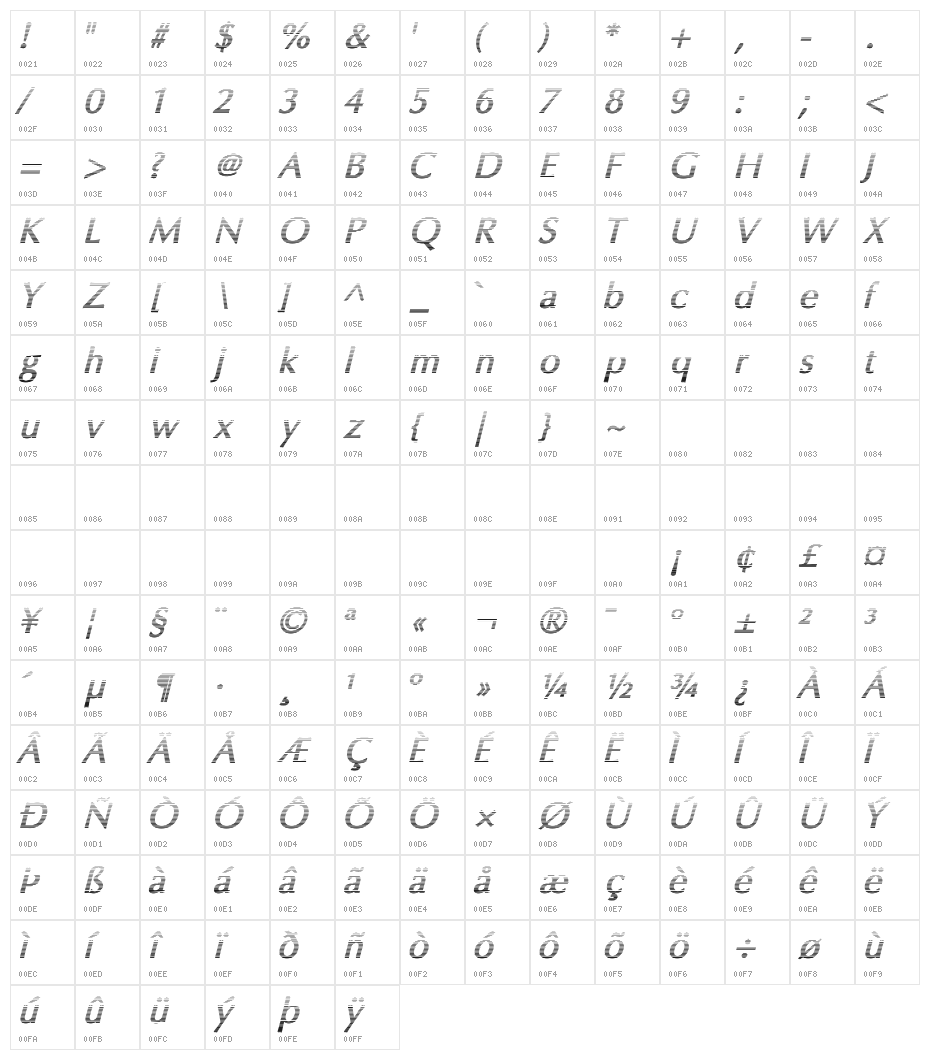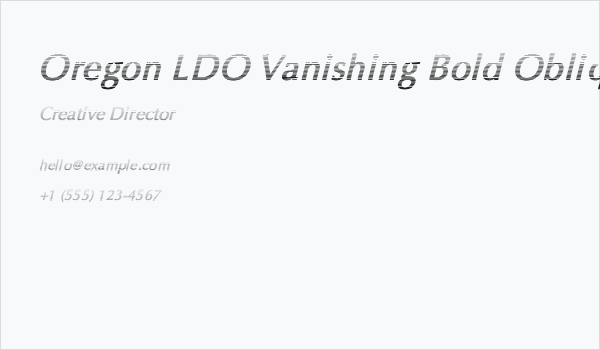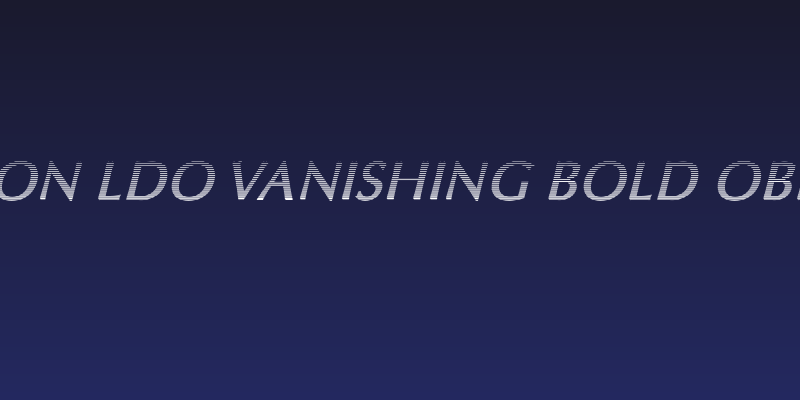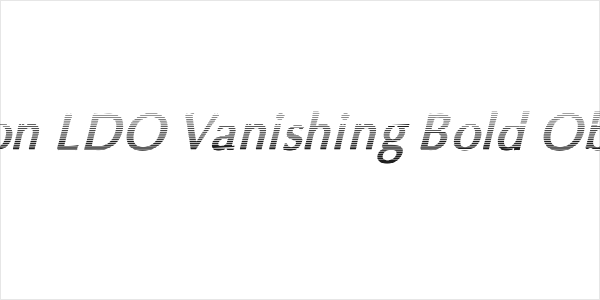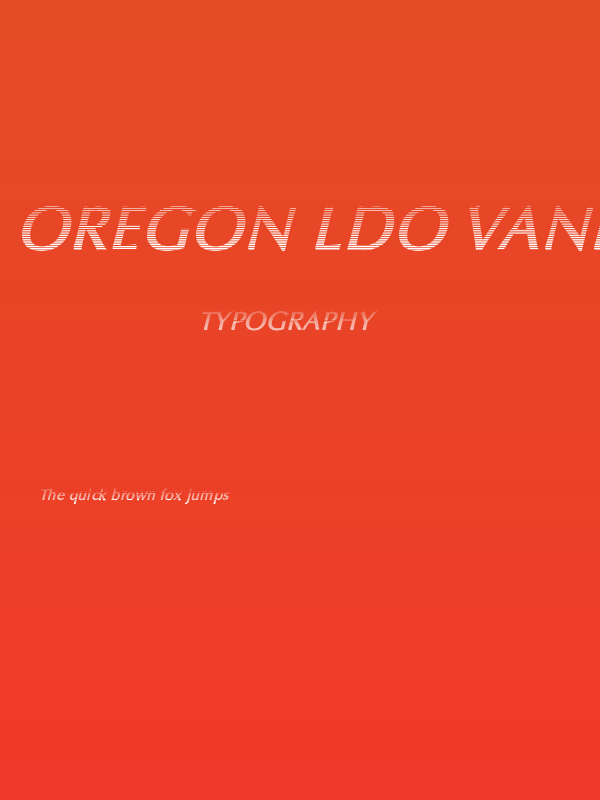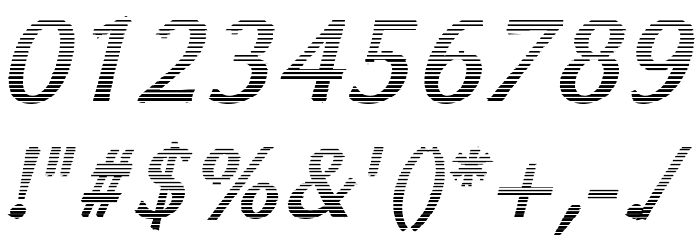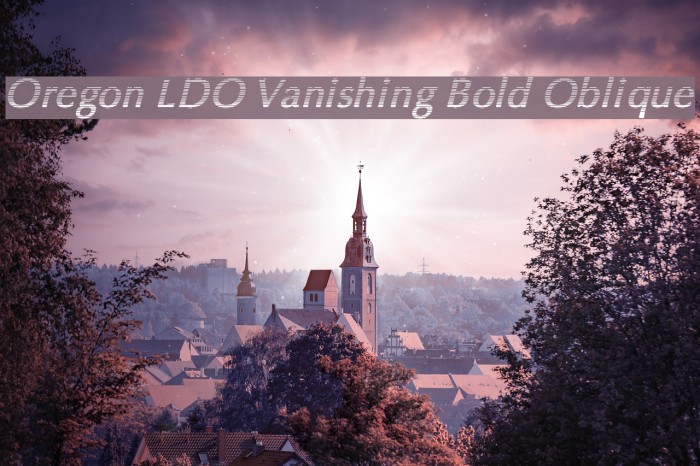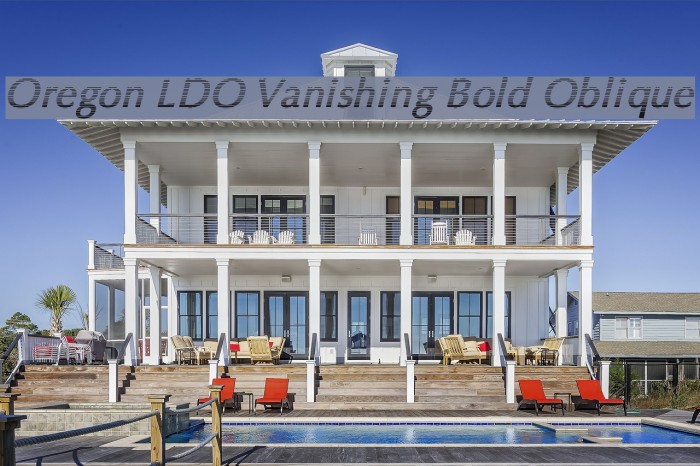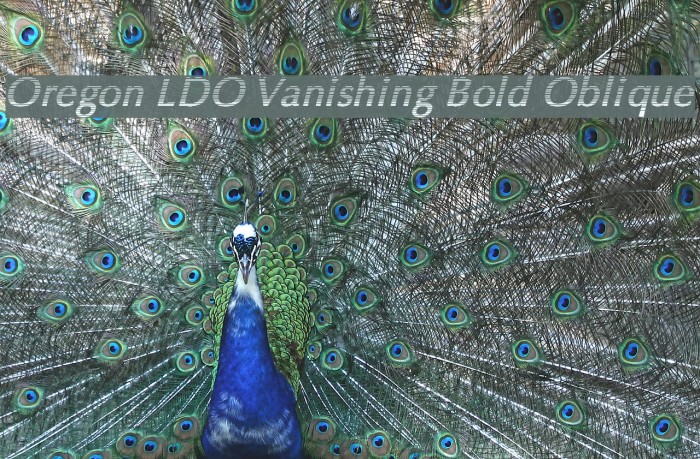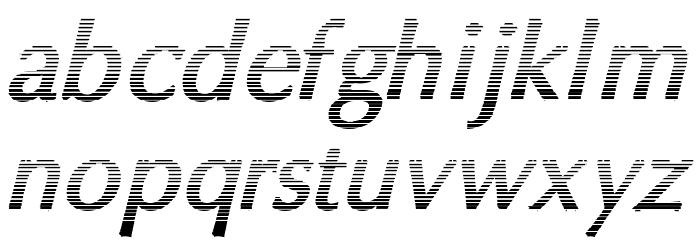
Oregon LDO Vanishing Bold Oblique Font
Oregon LDO Vanishing Bold Oblique Description
This font features a bold and oblique style with a distinctive vanishing effect created by horizontal lines cutting through each character. The uppercase and lowercase letters maintain a consistent slant, providing a sense of motion and dynamism. The numerals and special characters follow the same stylistic approach, ensuring uniformity across all glyphs. The font's unique design makes it stand out, offering a modern and edgy appearance that is both eye-catching and memorable.
| Proposed Projects | Ideal for modern branding, edgy posters, dynamic headlines, and creative digital artwork. |